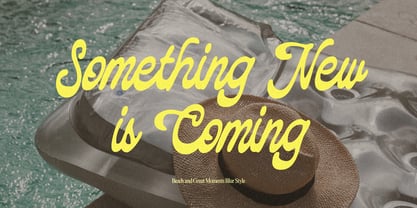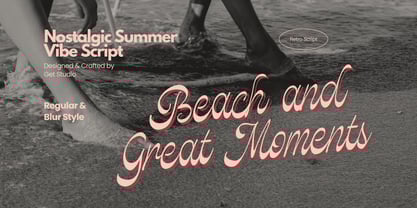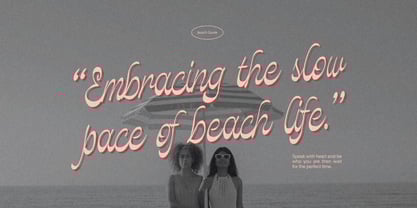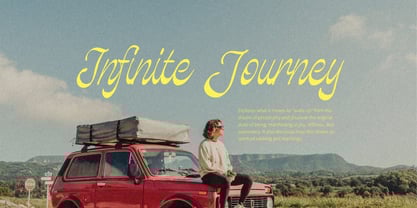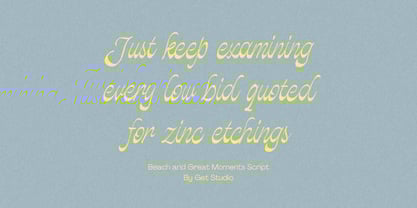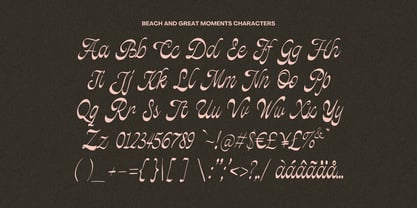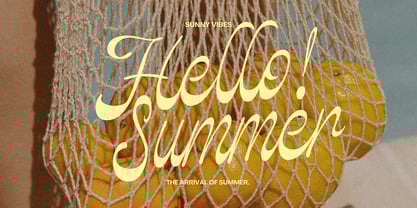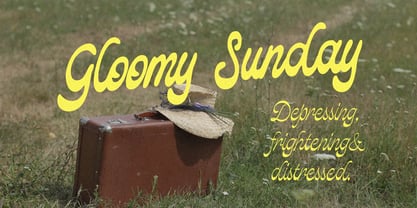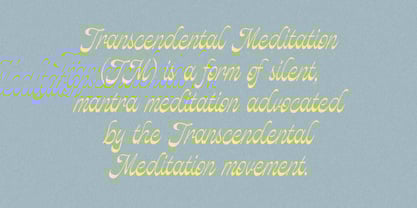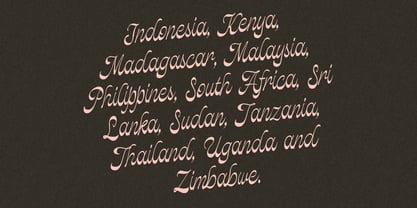
Beach and Great Moments
by Get Studio
The Beach and Great Moments Font Family was designed by Hermansyah and published by Get Studio. Beach and Great Moments contains 2 styles and family package options. More about this family
Beach and Great Moments is a nostalgic script font that brings the essence of summer to your designs. With smooth curves and an elegant handwritten flow, this typeface captures the relaxed, joyful spirit of beach days and unforgettable memories.
It's perfect for branding, travel-inspired projects, social media graphics, packaging, and editorial layouts that call for a vintage charm with a modern touch.
"Feel the Summer Breeze in Every Stroke."